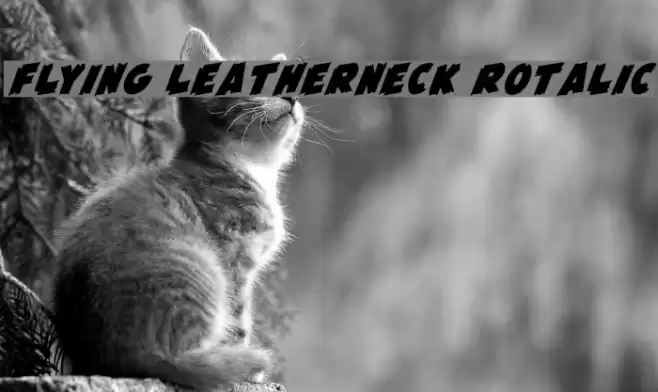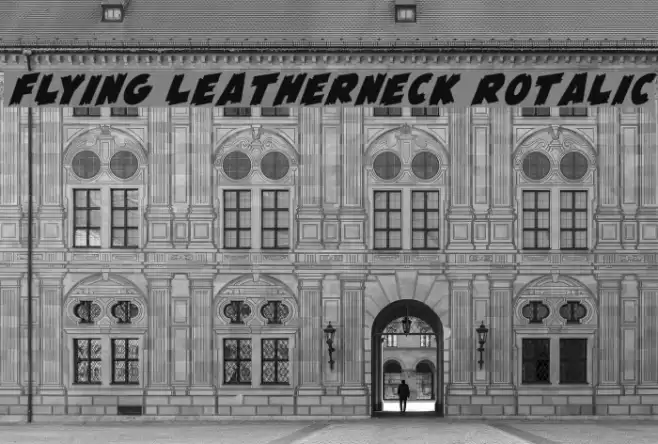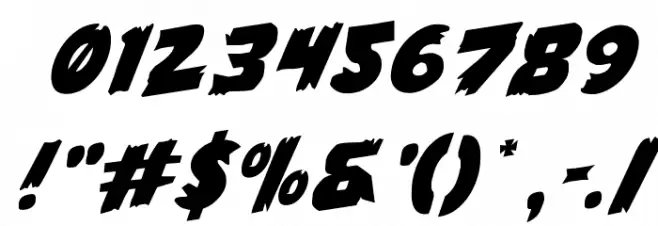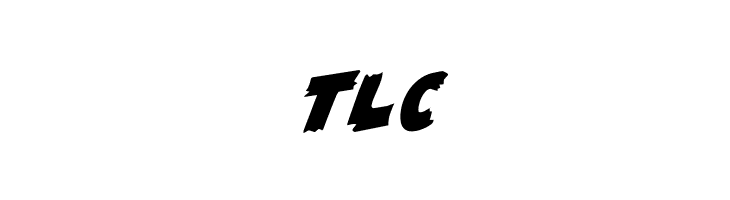
Flying Leatherneck Rotalic Font
Flying Leatherneck Rotalic Description
This font features a bold and dynamic style with a strong, angular design. The characters are sharply cut with a sense of motion, giving them a rugged and energetic appearance. The uppercase and lowercase letters maintain a consistent style, with the uppercase being slightly more pronounced. Numbers and special characters follow the same bold and aggressive design, making them stand out. The font's overall look is reminiscent of action-packed themes, suitable for projects that require a sense of urgency or excitement.
A bold, angular font with a dynamic and energetic style from Uncategorized fonts.
- Proposed Projects: Ideal for use in action movie posters, sports team logos, video game titles, and dynamic branding projects.
- Overall Style: Dynamic and Energetic